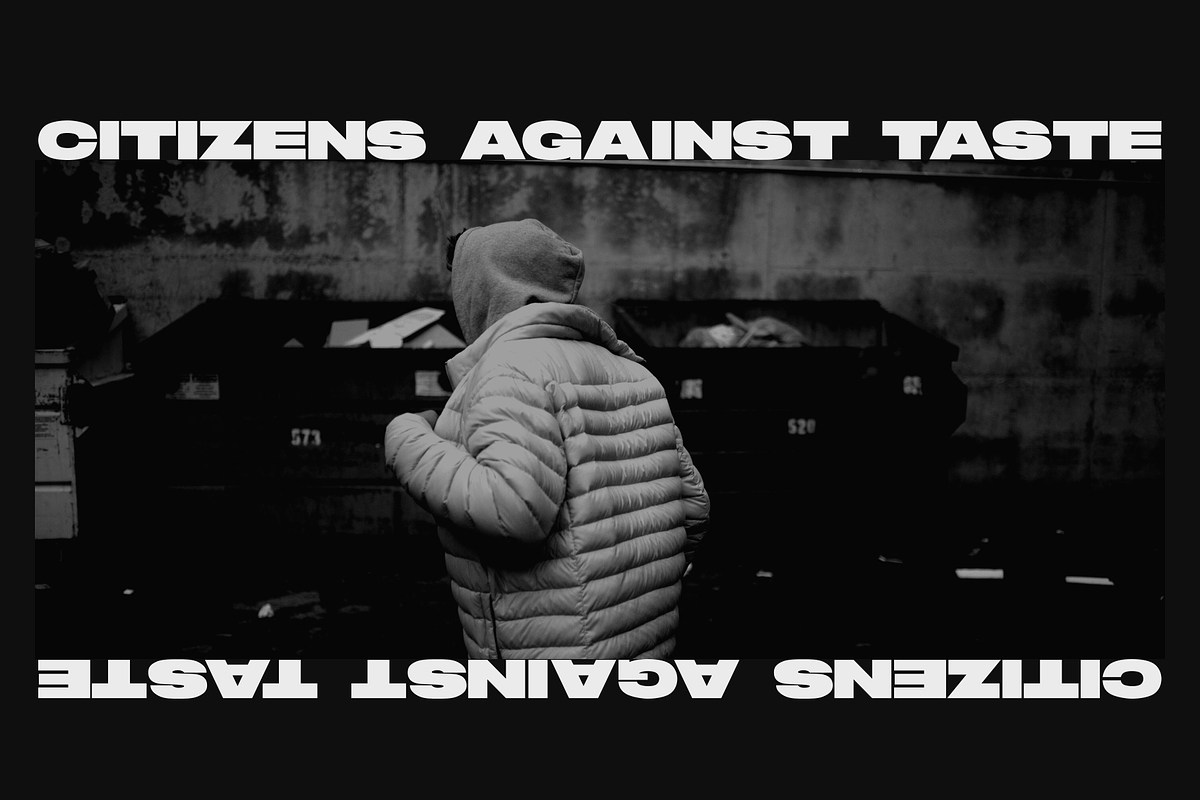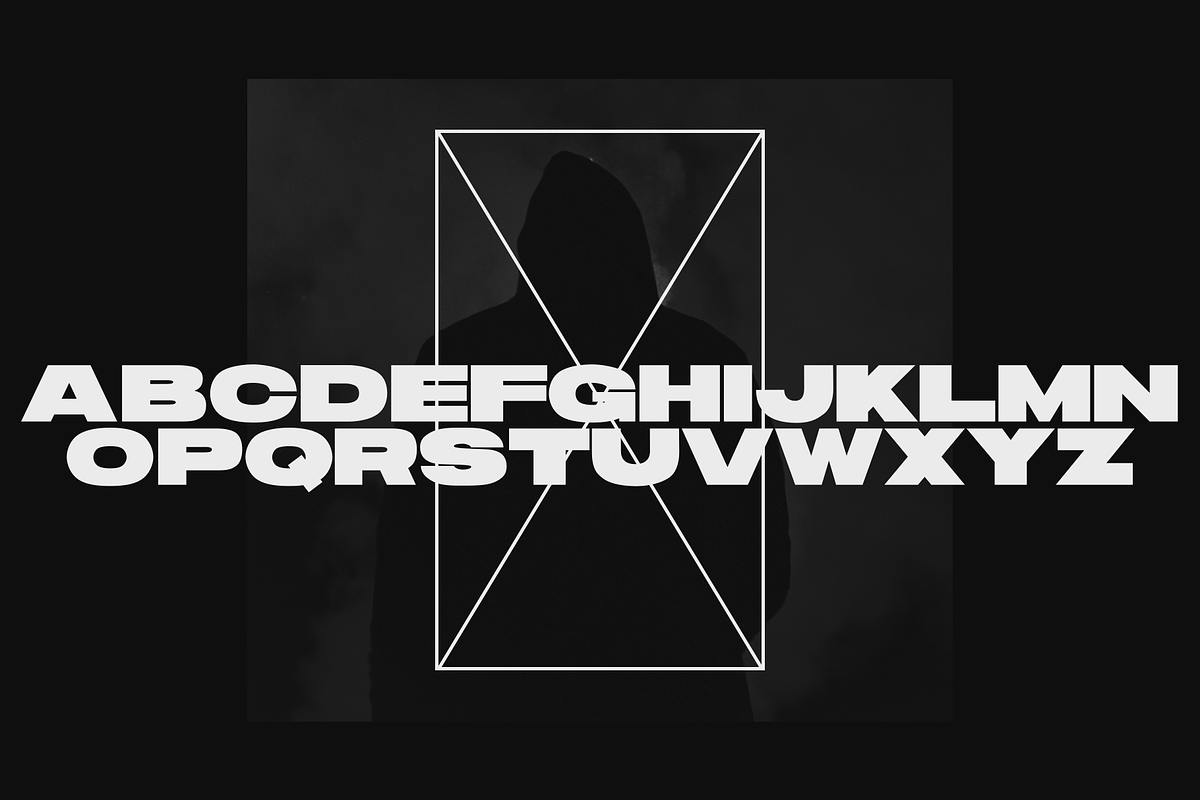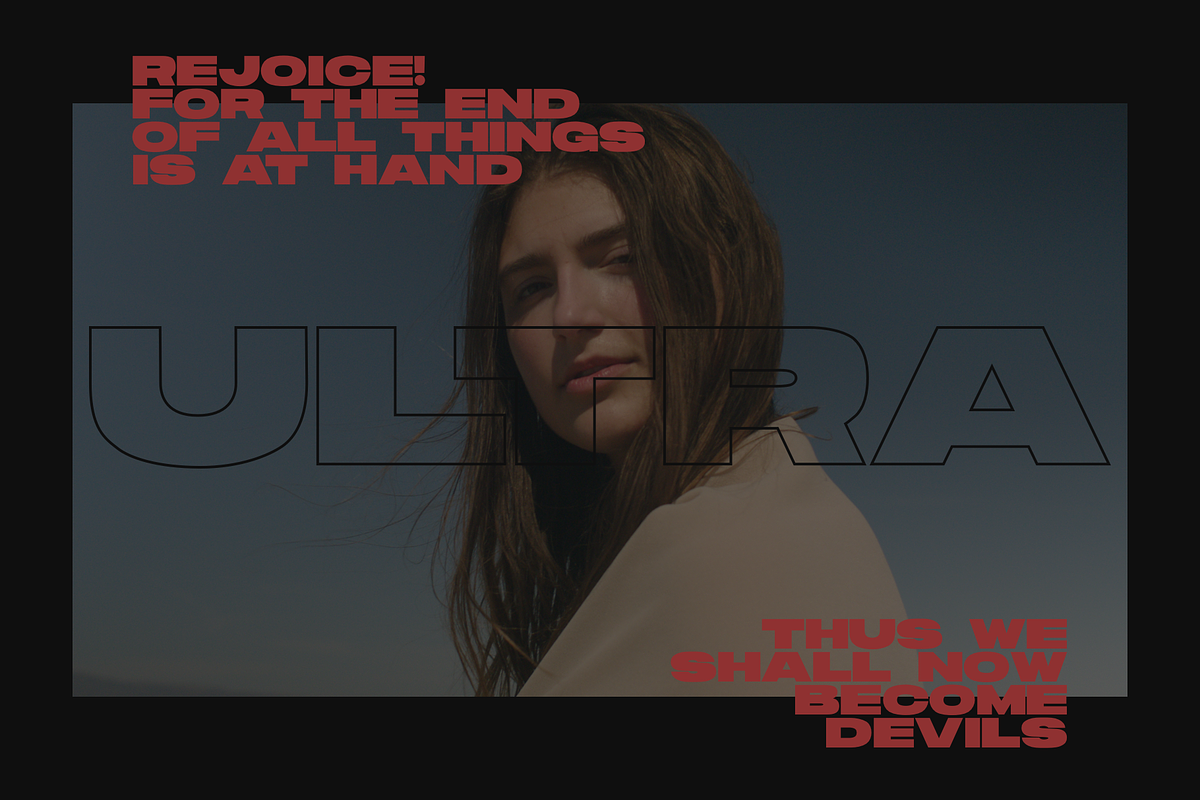
NF ULTRA is what you use when you want to push the boundaries in your designs. A geometric sans-serif stretched to the breaking point, this is a living typeface which will be updated over time with additional characters, glyphs, and ligatures – it will grow with you. Use it in any project that requires a bold, clear statement.